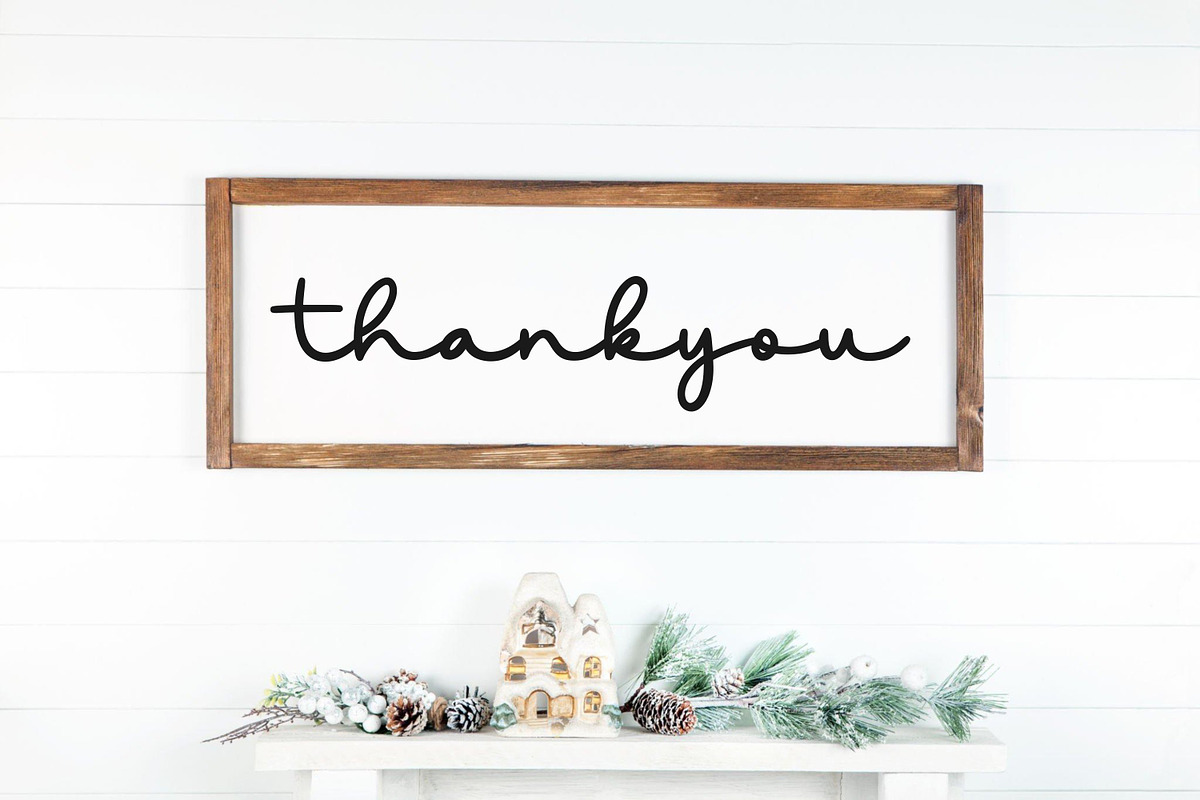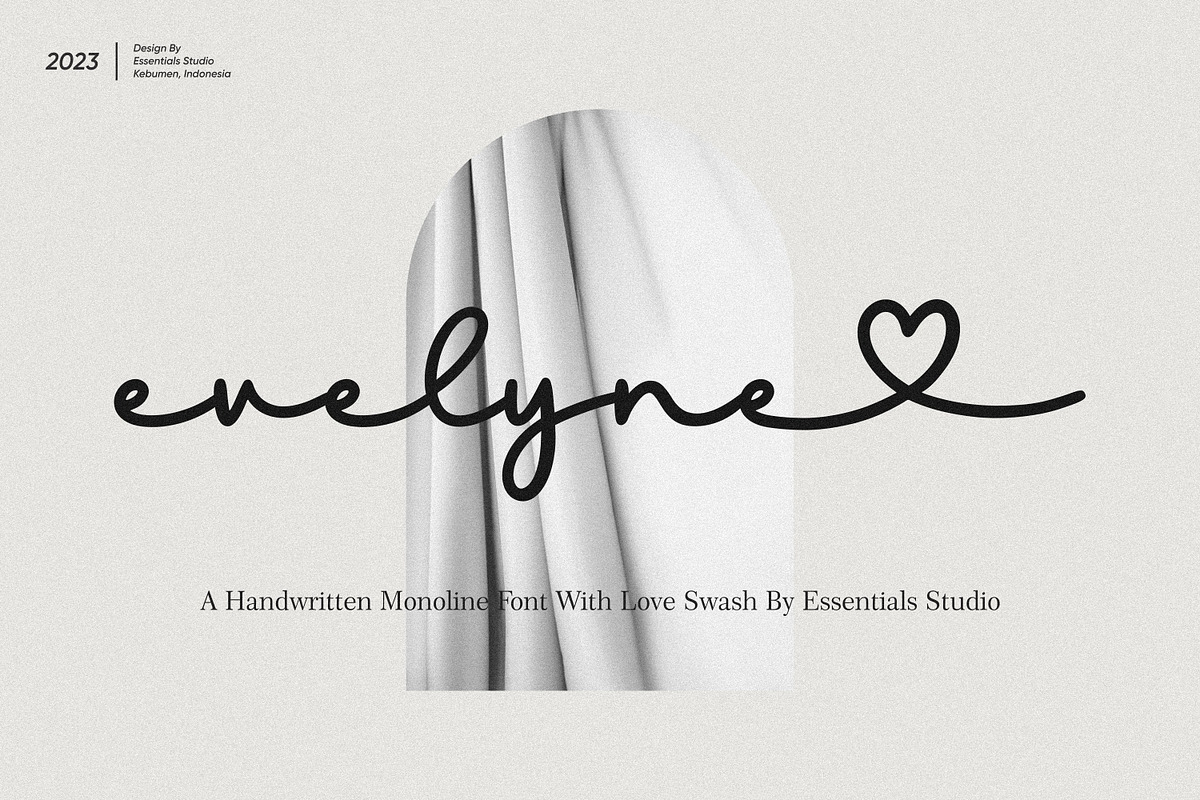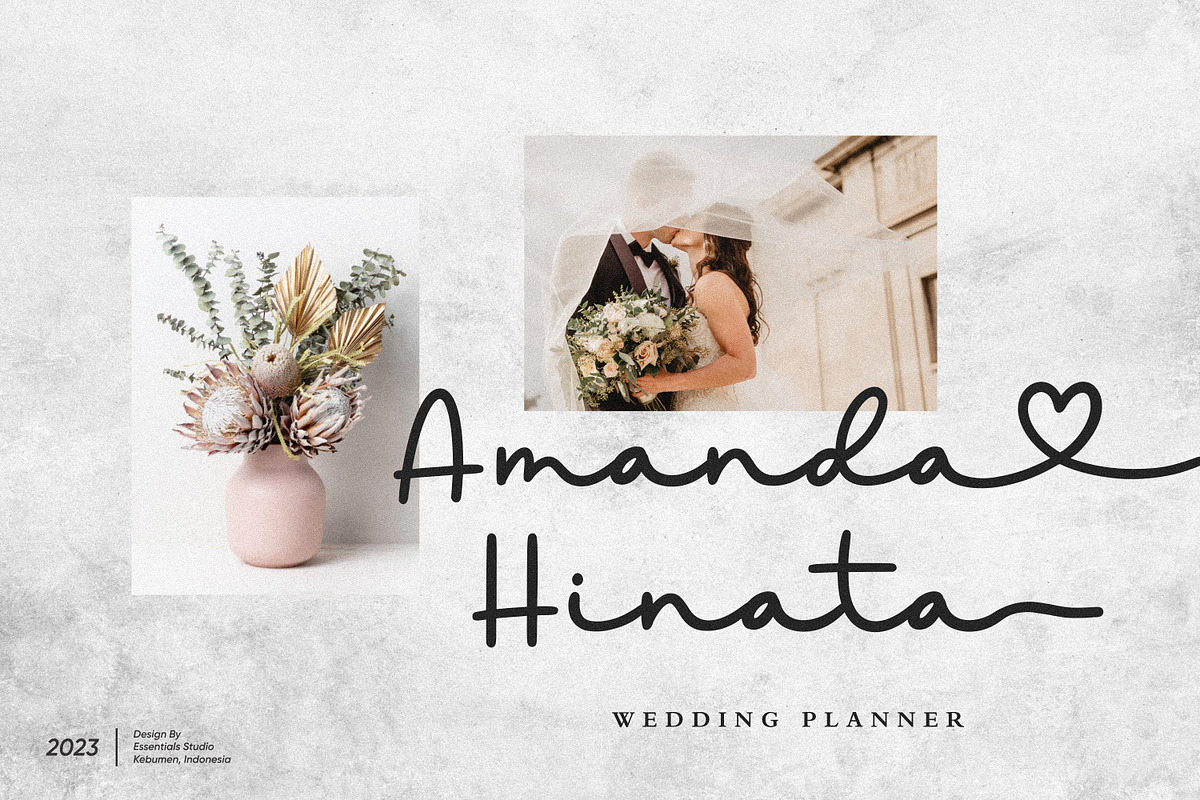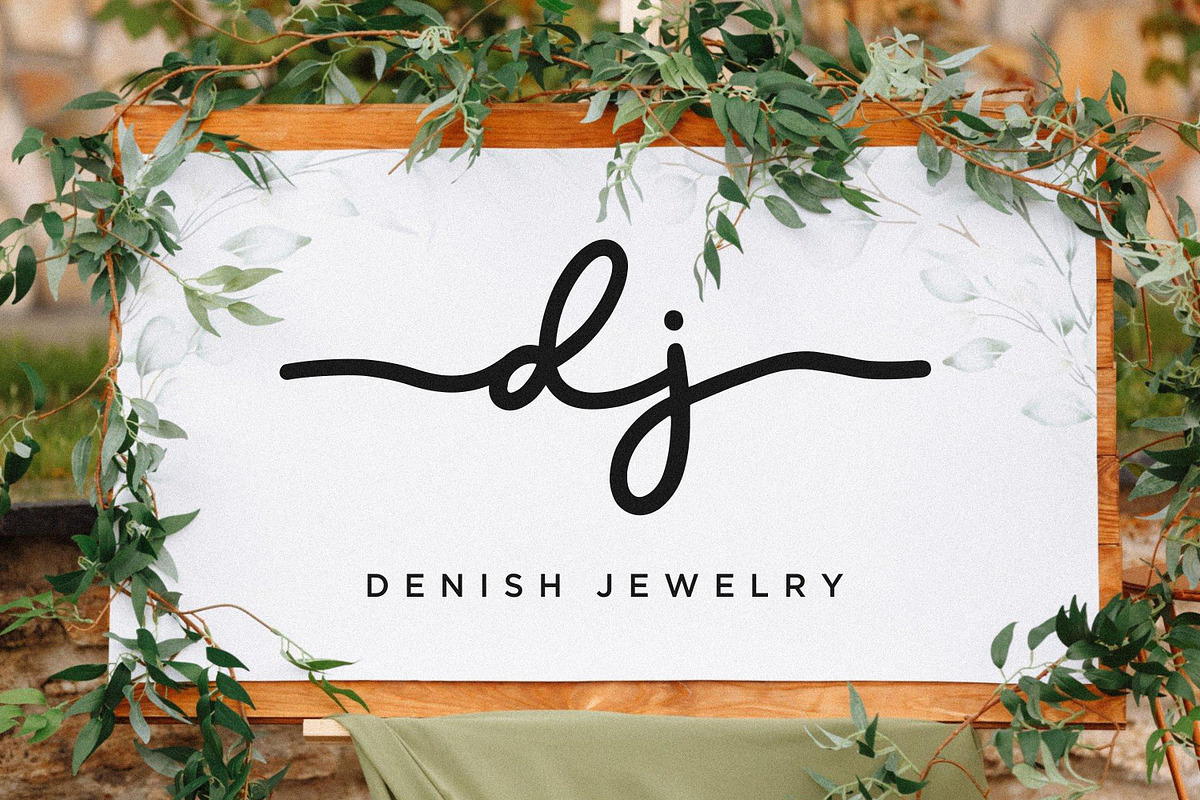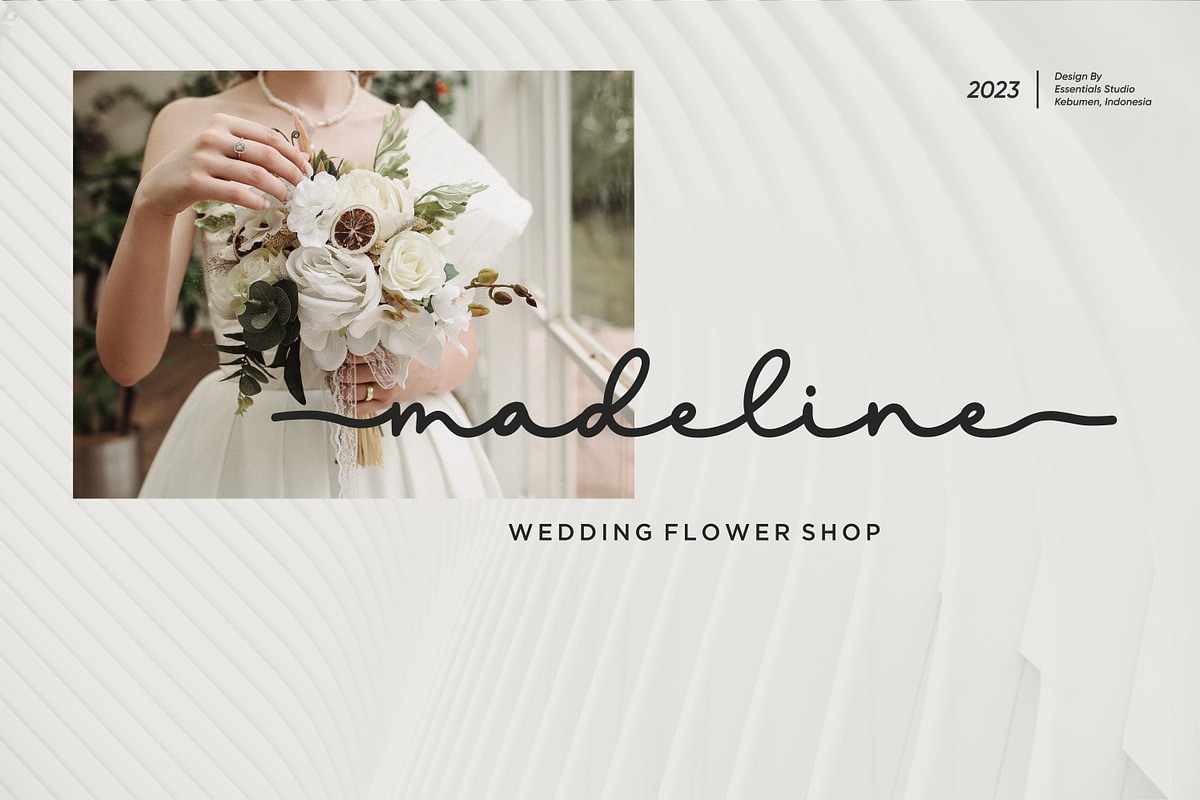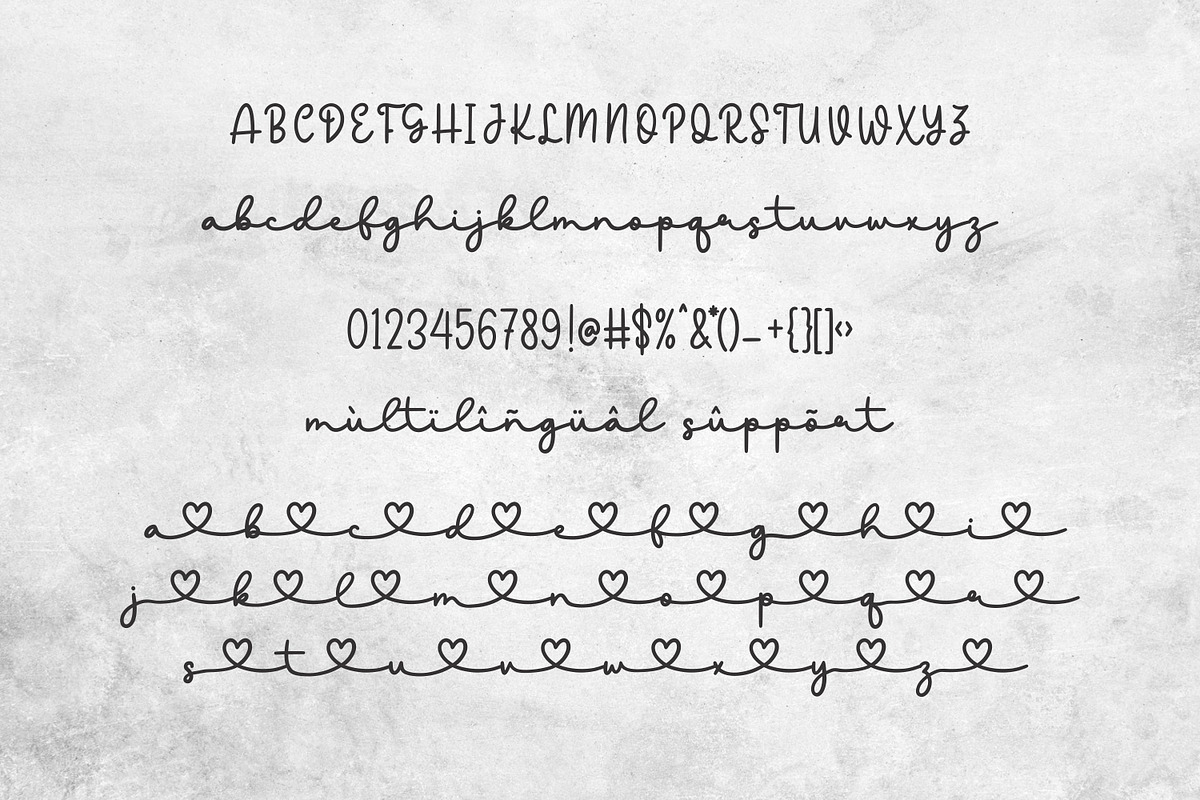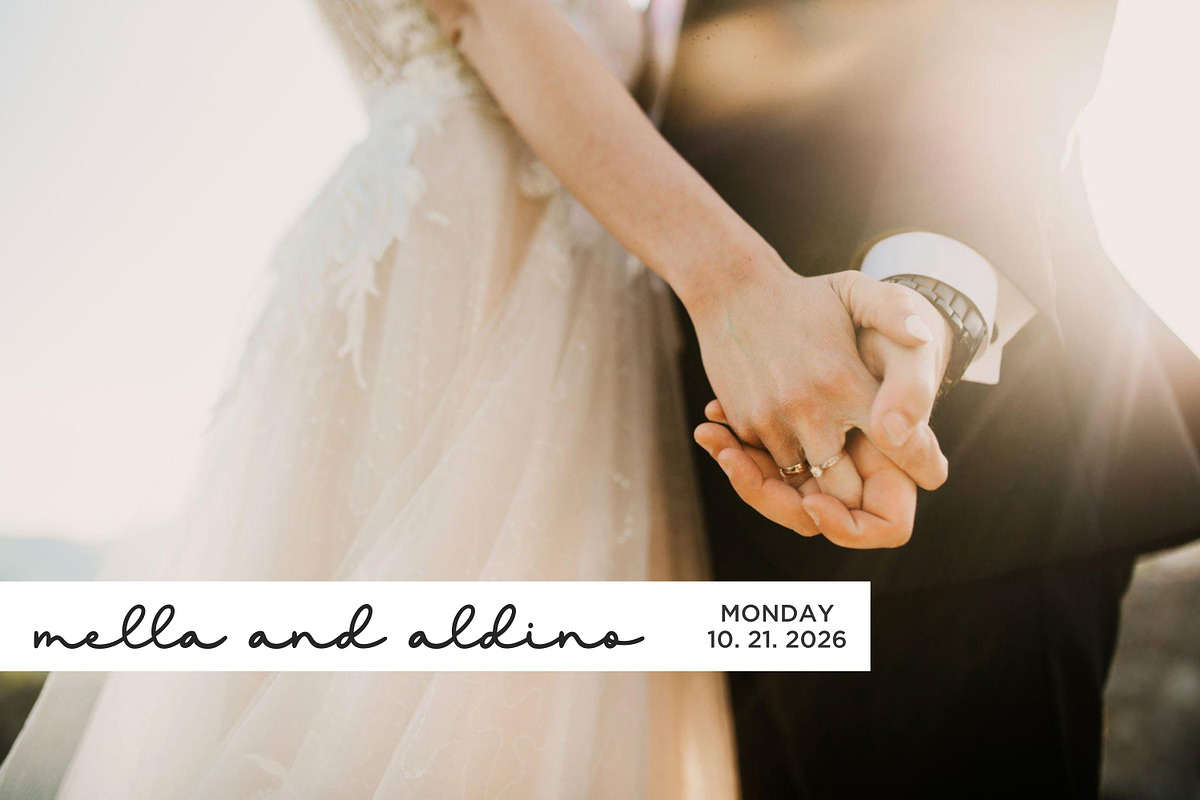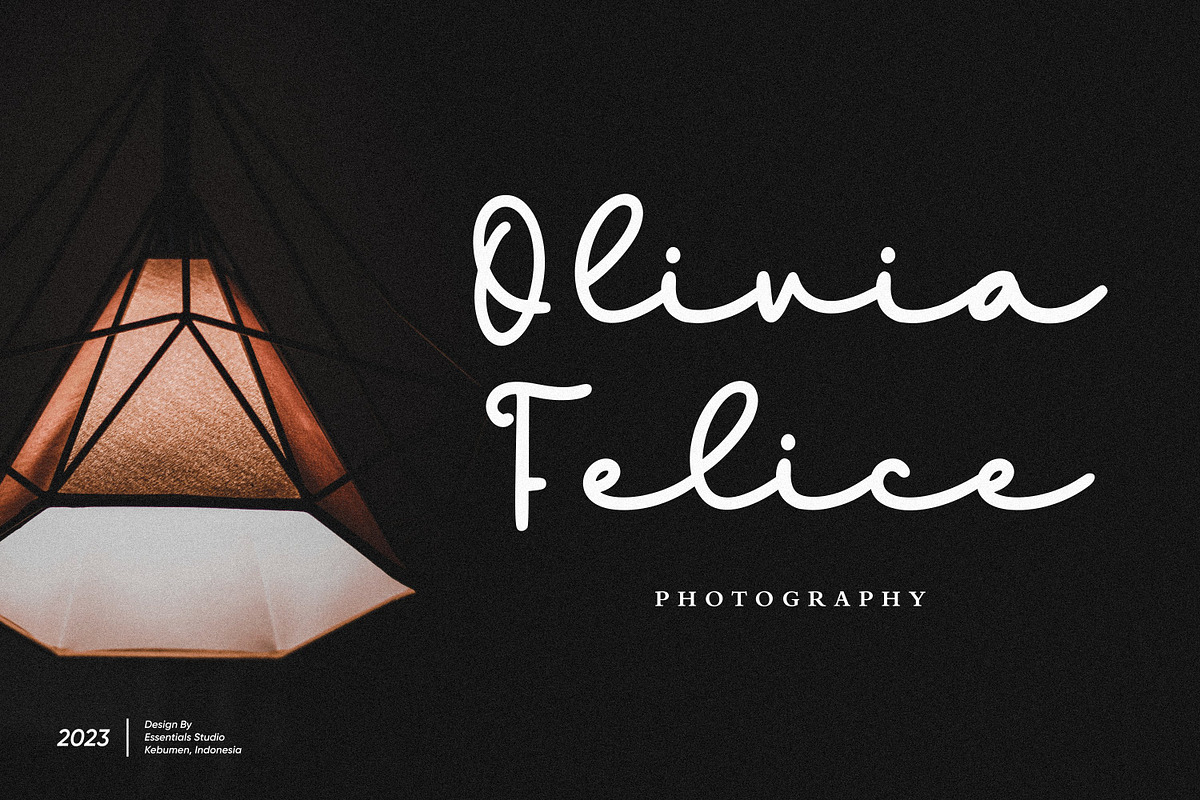
Evelyne
About the Product Introducing by Essentials Studio
Proudly Present, Evelyne
Evelyne Is a Modern monoline Font Include 50+ stylish Alternate
Evelyne is perfect for product packaging, branding project, megazine, social media, wedding, or just used to express words above the background.